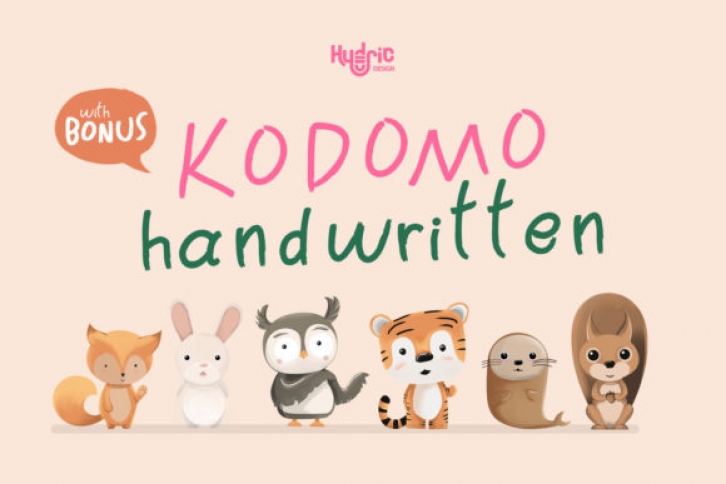
Kodomo Handwritten is a sweet and drolly handwritten font – perfect for casual type in greeting cards, illustrations, quotes, quaint branding, book covers, children’s books, packaging, and many more.